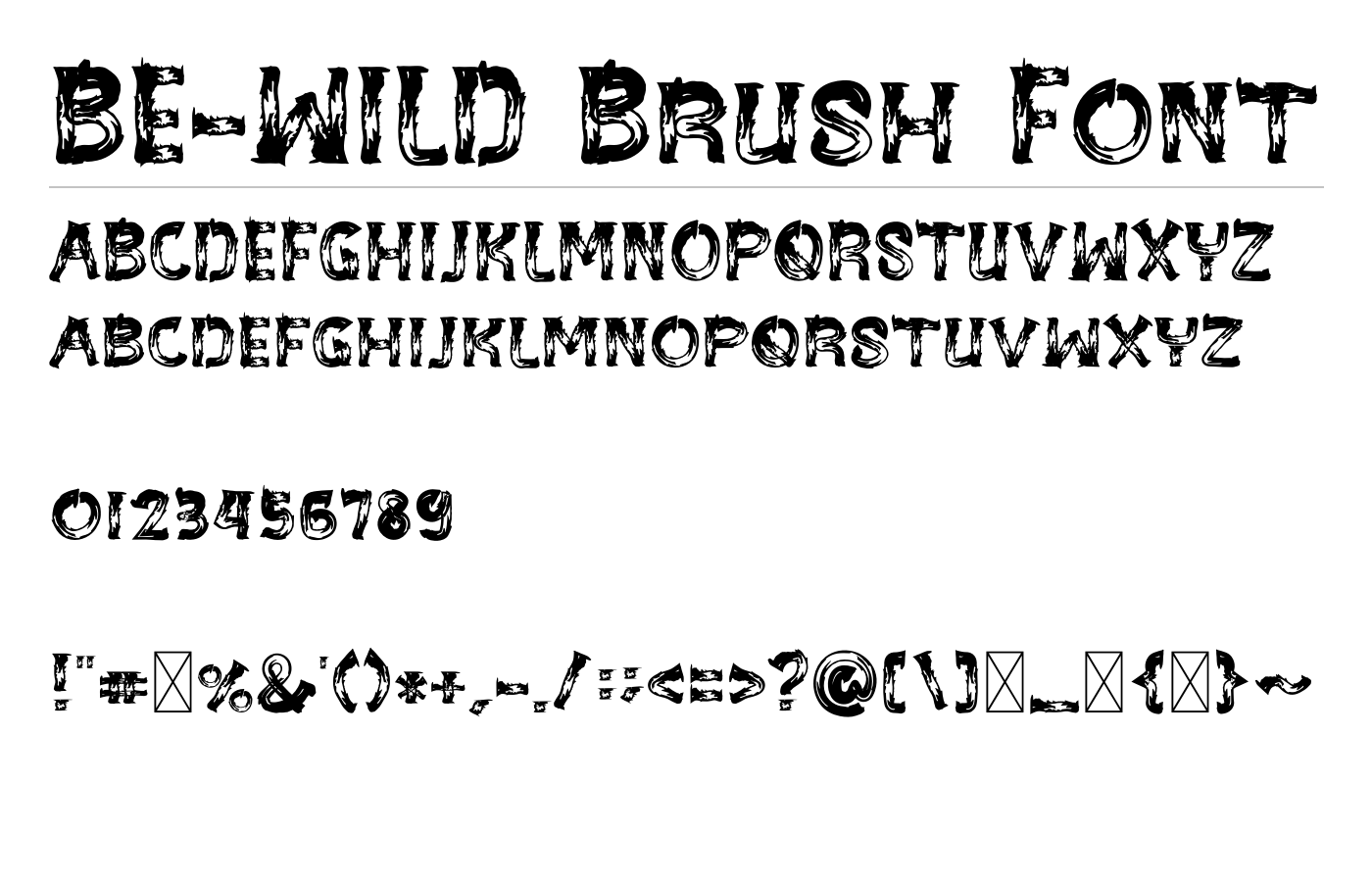
BE-WILD Brush Font is a bold, textured display typeface with a rough, hand-painted brush style that gives it a wild, organic feel. Its irregular edges and dynamic strokes make it perfect for eye-catching headlines, creative posters, and branding that aims to convey energy and a raw, adventurous spirit. This font works best in designs that benefit from a strong, artistic personality rather than long text blocks.
BE-WILD Brush Font
About BE-WILD Brush Font
| Designer | Eep Apringga | Namara Creative Studio |